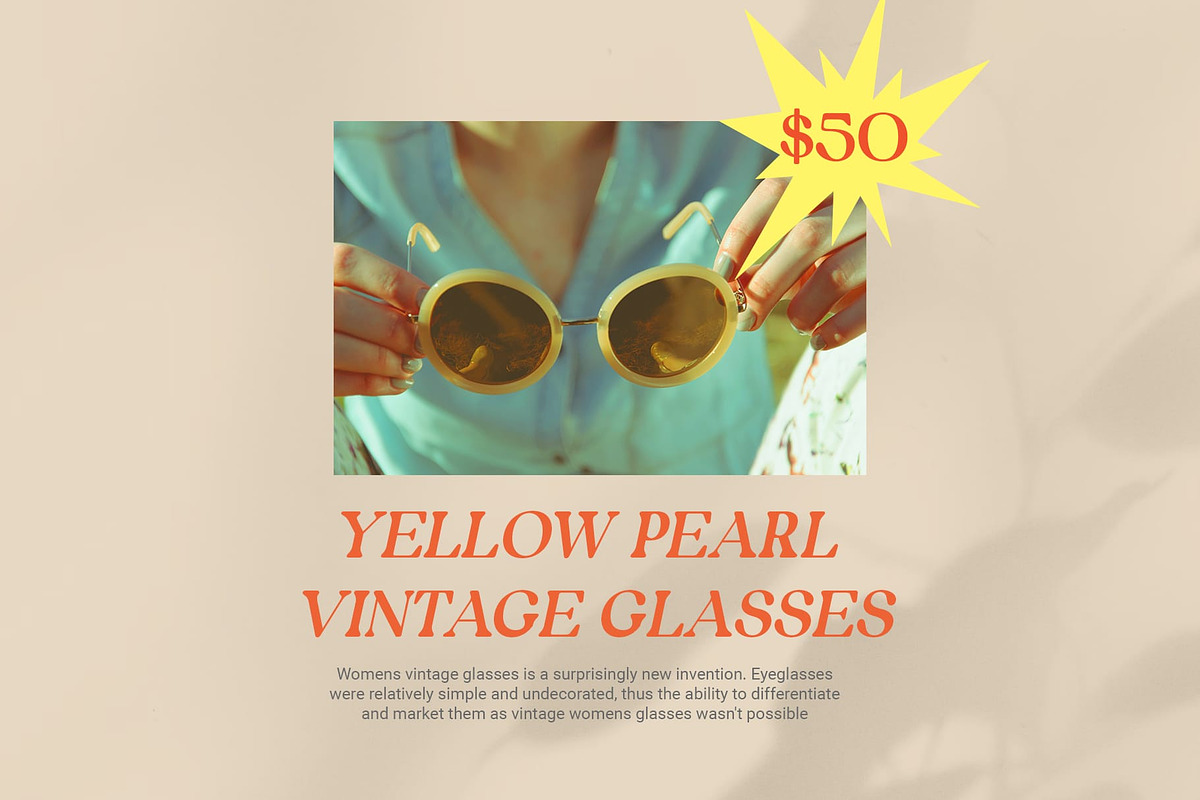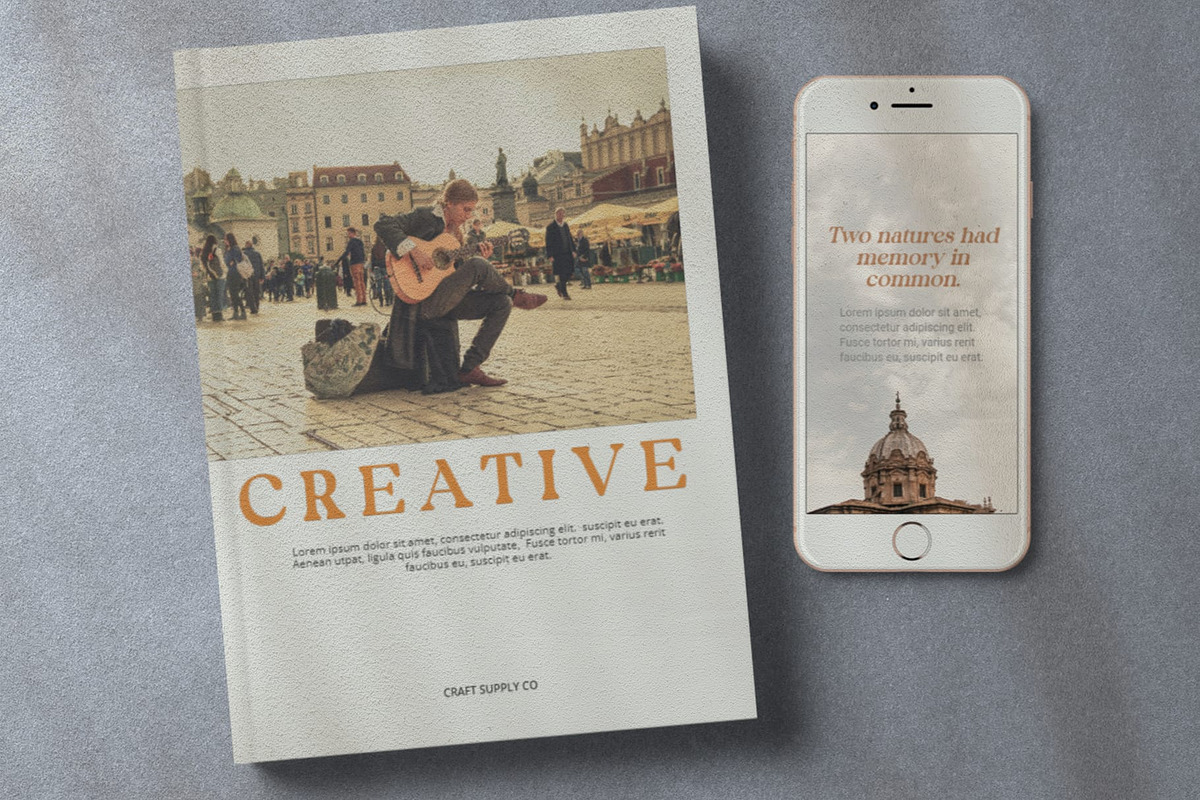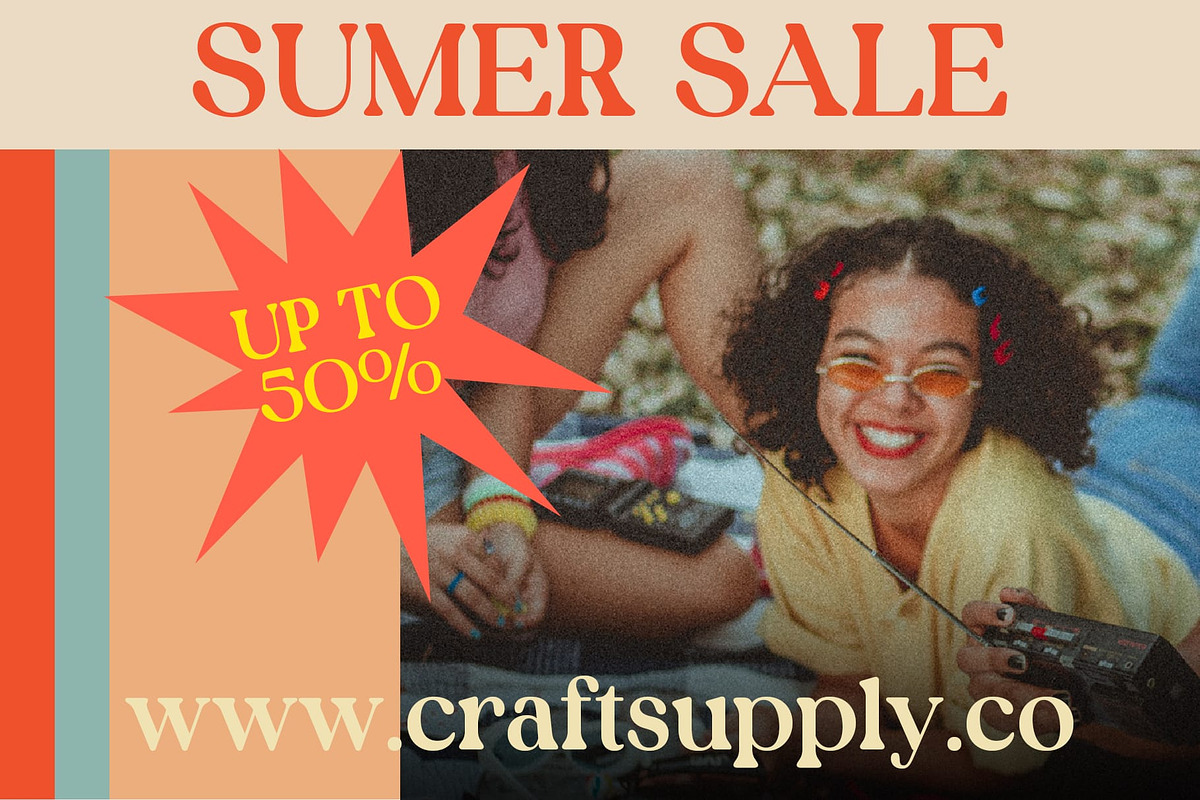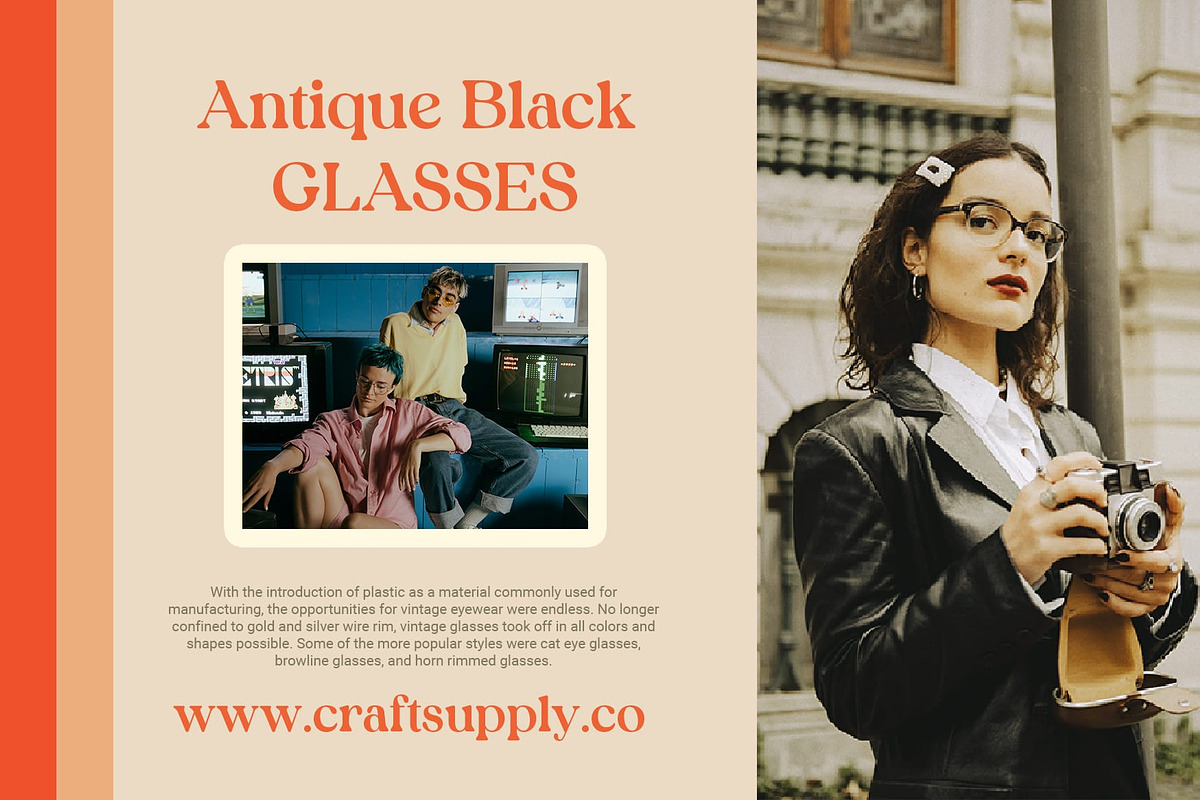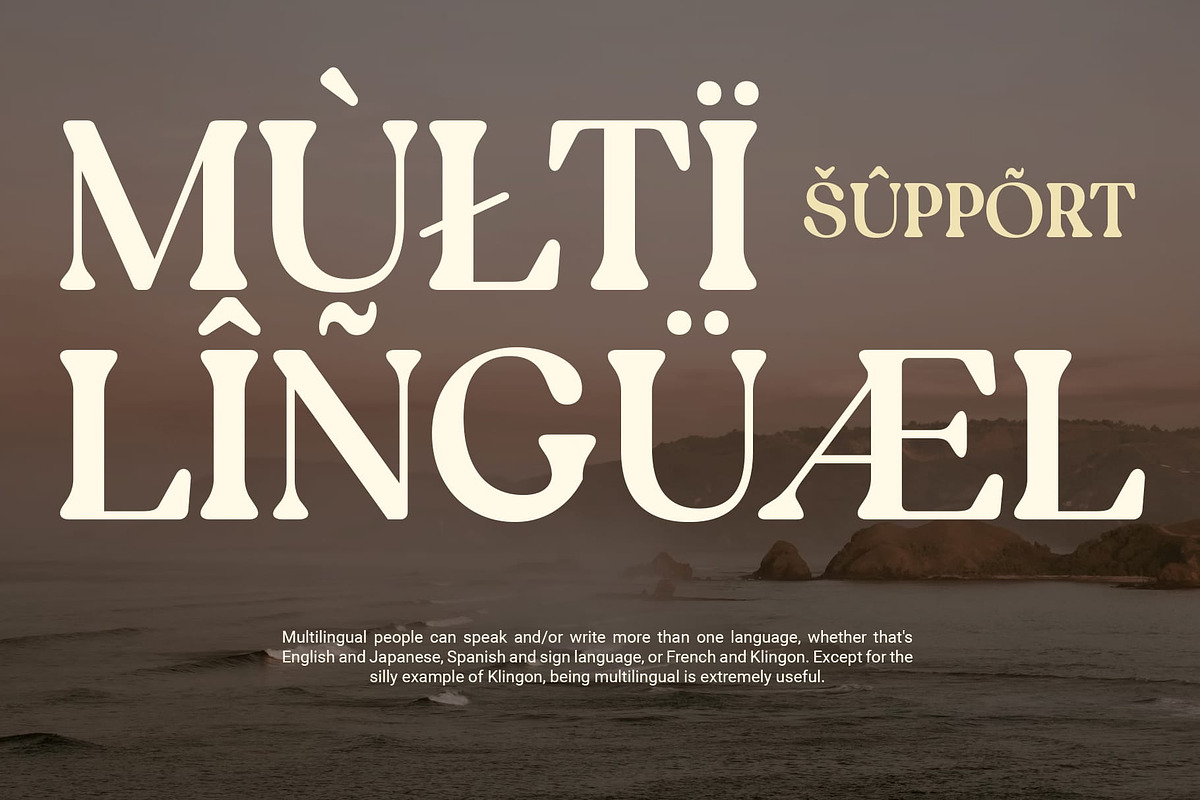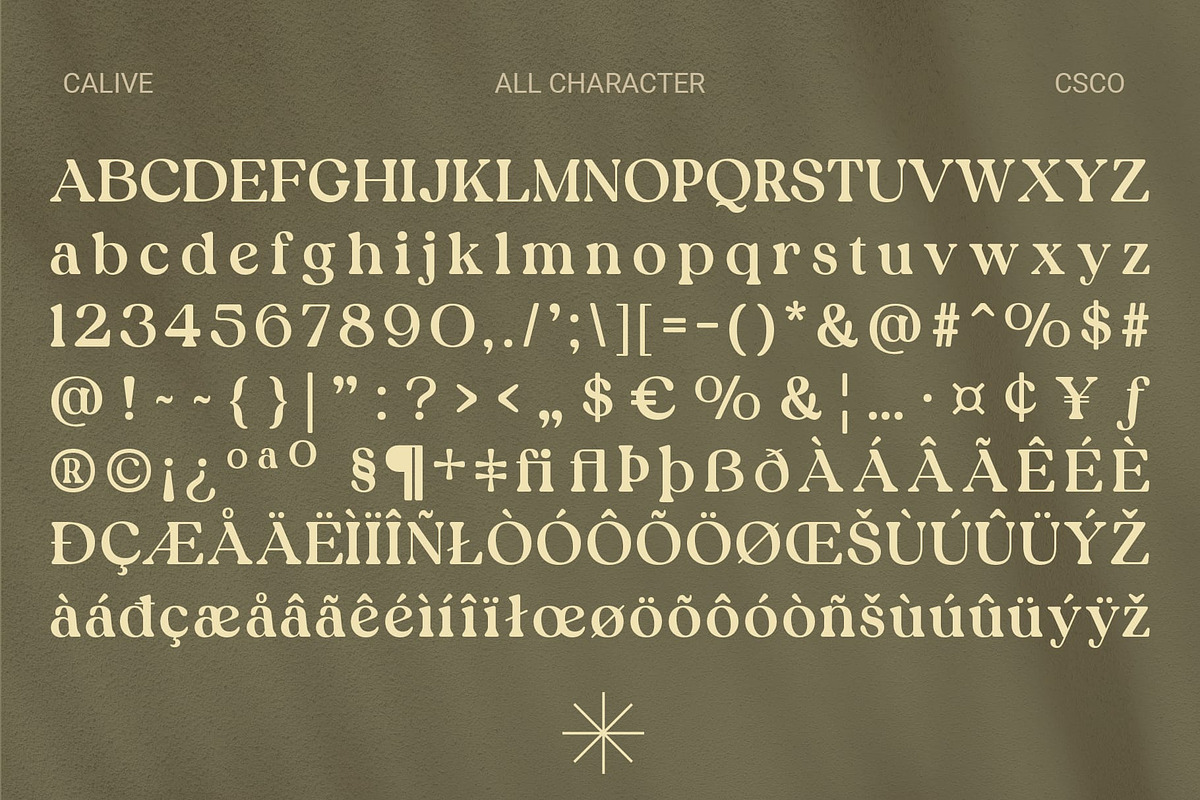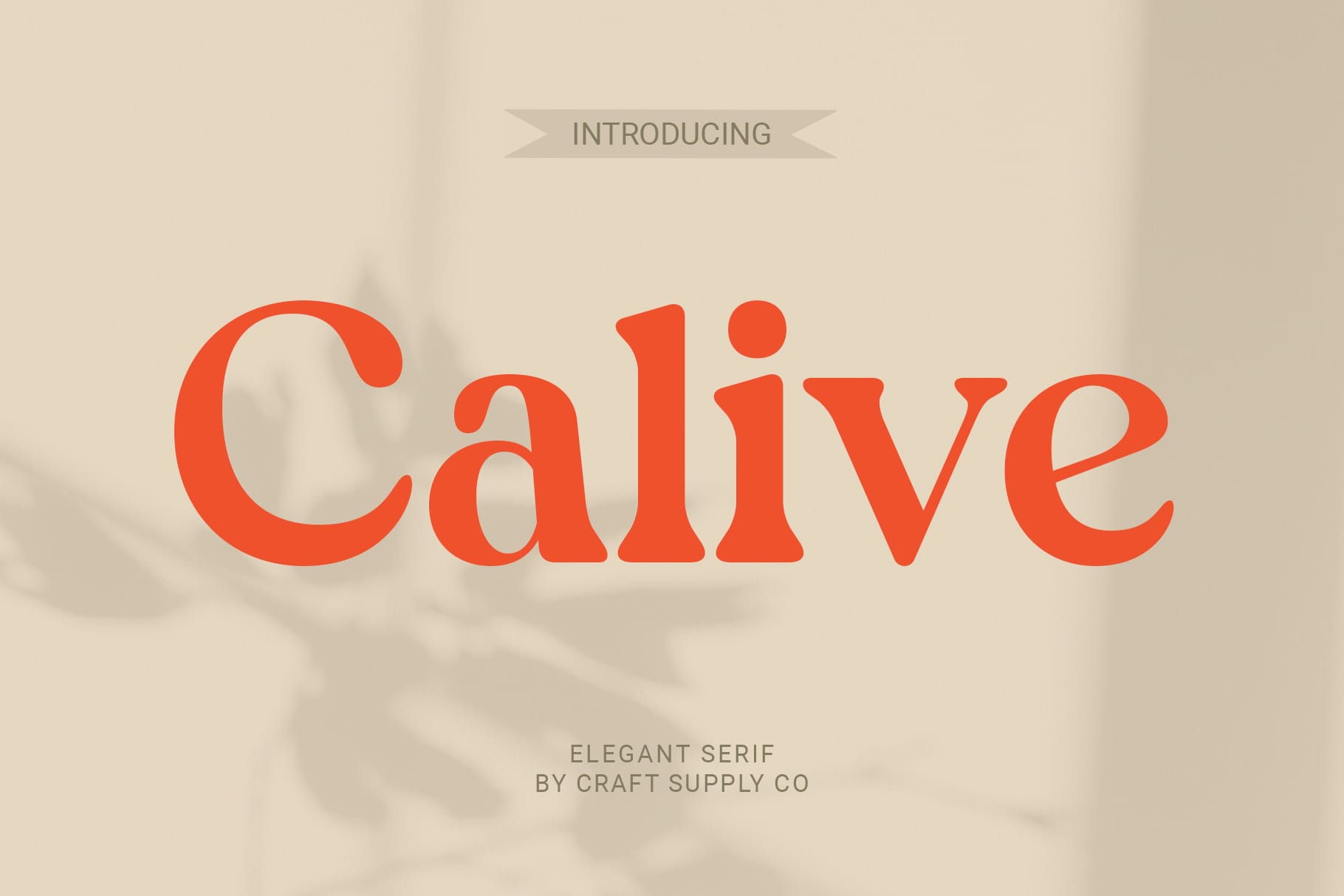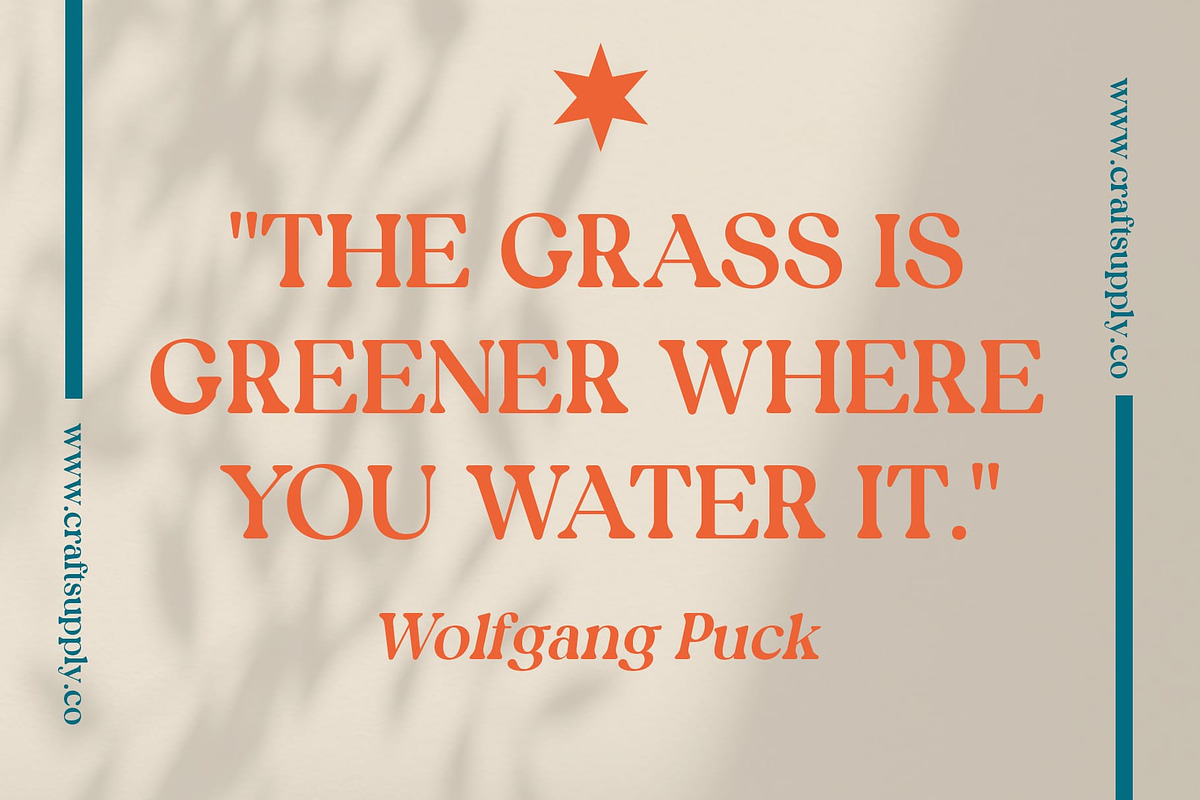
Calive – Nostalgic Font
Calive Font: A Soft and Nostalgic Serif
Rounded Serif Design Calive features a distinctive rounded serif design that exudes a soft and gentle aesthetic. Each letter carries a subtle charm, reminiscent of typography from the 90s era.
Soft and Nostalgic Vibes With its rounded serifs, Calive evokes a sense of nostalgia, transporting viewers back to the comforting visuals of the 90s. Its soft appearance adds warmth and familiarity to any project.
Versatile Usage Designed for versatility, This font is suitable for a wide range of applications, including branding, packaging, and editorial design. Its nostalgic charm adds character and personality to every design.
Timeless Appeal Despite its retro-inspired look, This font maintains a timeless appeal that transcends trends. Whether used for digital or print media, its rounded serifs bring a touch of warmth and approachability to any project.
Embracing Nostalgia with Soft Serifs This font emerges as a font that embraces nostalgia with its soft and rounded serifs, reminiscent of 90s typography. Its versatility and timeless appeal make it a perfect choice for designers seeking to infuse their projects with a sense of warmth and familiarity. Step into the past with Calive and let its soft serifs tell your story.